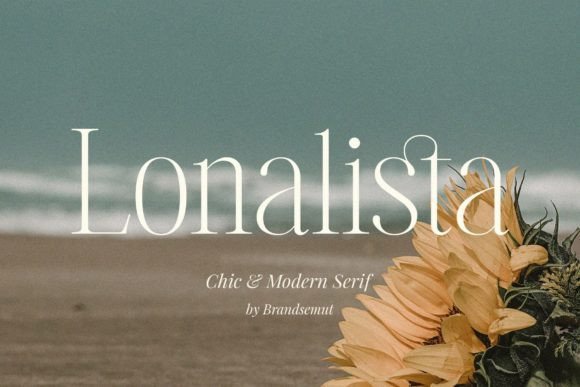
**Lonalista: The Font of Enchantment for Your Wedding Website**
As you embark on the magical journey of planning the most special day of your life, let Lonalista, a captivating serif typeface, weave its enchanting spell into your wedding website. With its exquisite balance of elegance and modernity, Lonalista will elevate every detail of your online celebration, leaving an unforgettable impression on your guests.
Indulge in the allure of Lonalista's graceful curves and crisp lines. Each letterform is meticulously crafted to exude a timeless sophistication, perfectly complementing the significance of your matrimonial union. From the whimsical flourishes of your Save the Dates to the heartfelt prose of your wedding vows, Lonalista will transform your website into a captivating masterpiece.
Unleash your creativity and let Lonalista's versatility enchant you. Whether you envision ethereal headers that dance across the page or eye-catching logos that proclaim your love, Lonalista's adaptable nature will effortlessly align with your unique vision. Experience the joy of personalizing your website with a font that truly resonates with your love story.
Imagine your guests being greeted by the warm embrace of Lonalista's welcoming typography on your wedding invitations. Its elegant curves will evoke the anticipation of your special day, setting the tone for a celebration filled with love, laughter, and unforgettable memories.
With Lonalista, you hold the power to create a wedding website that is not merely a portal of information, but a cherished keepsake that your loved ones will treasure forever. Let its timeless beauty capture the essence of your love and provide a lasting testament to the most magical day of your lives.